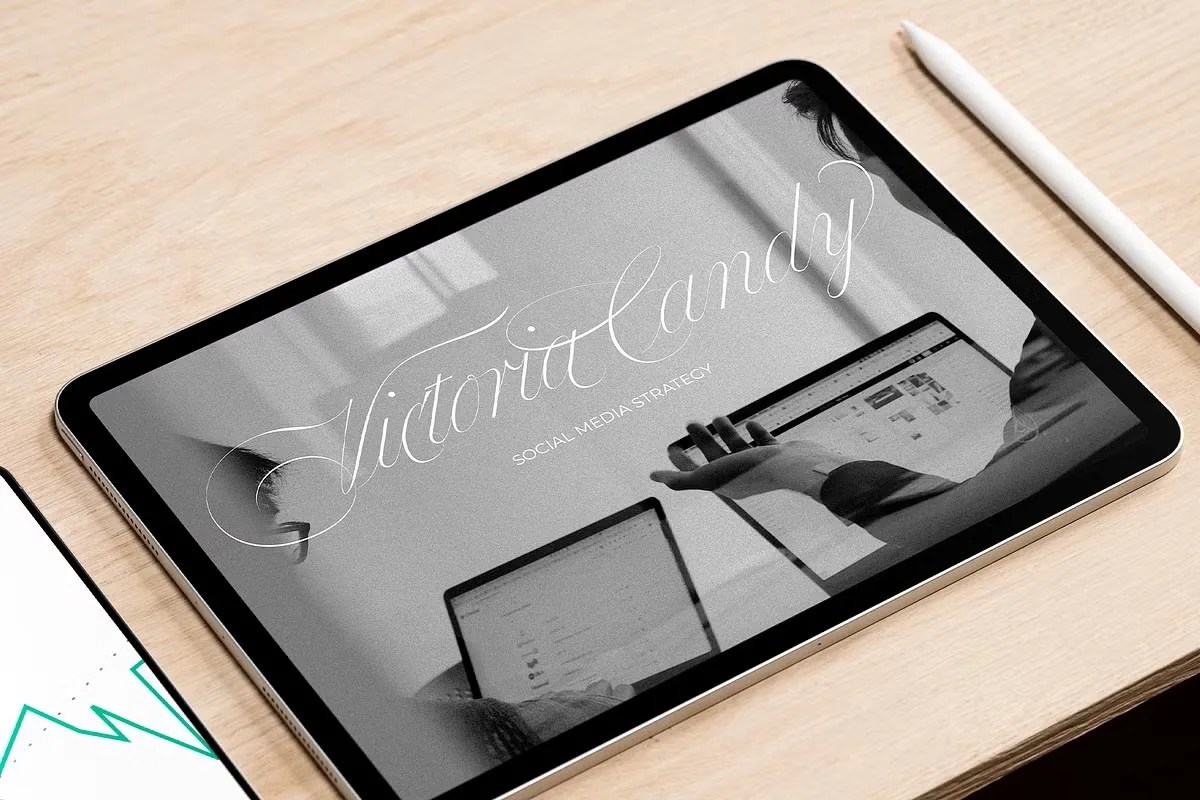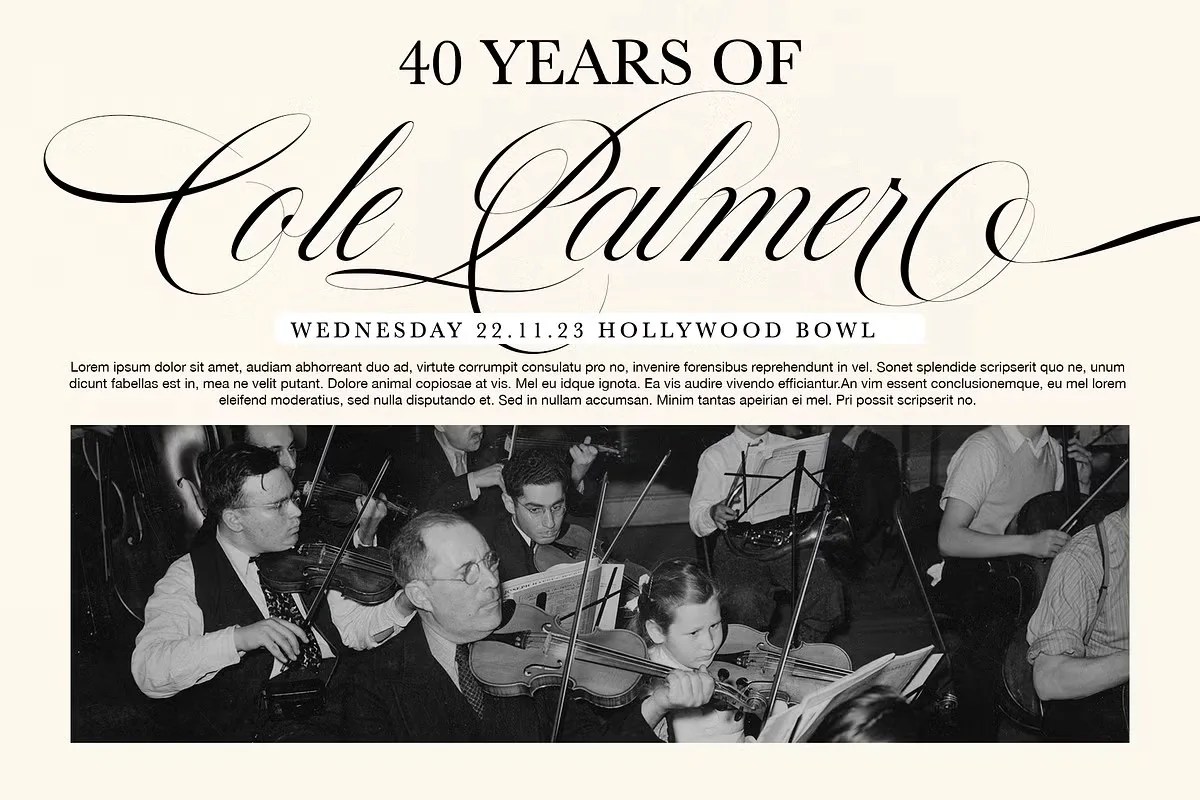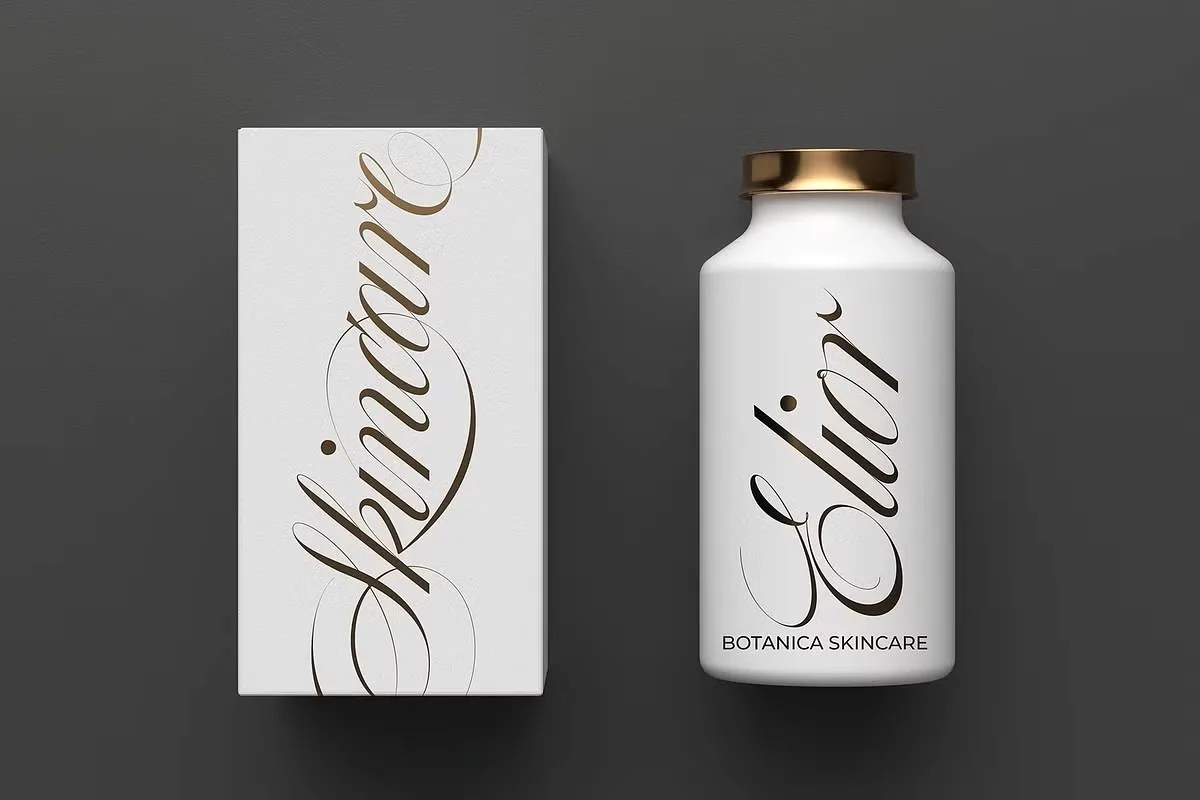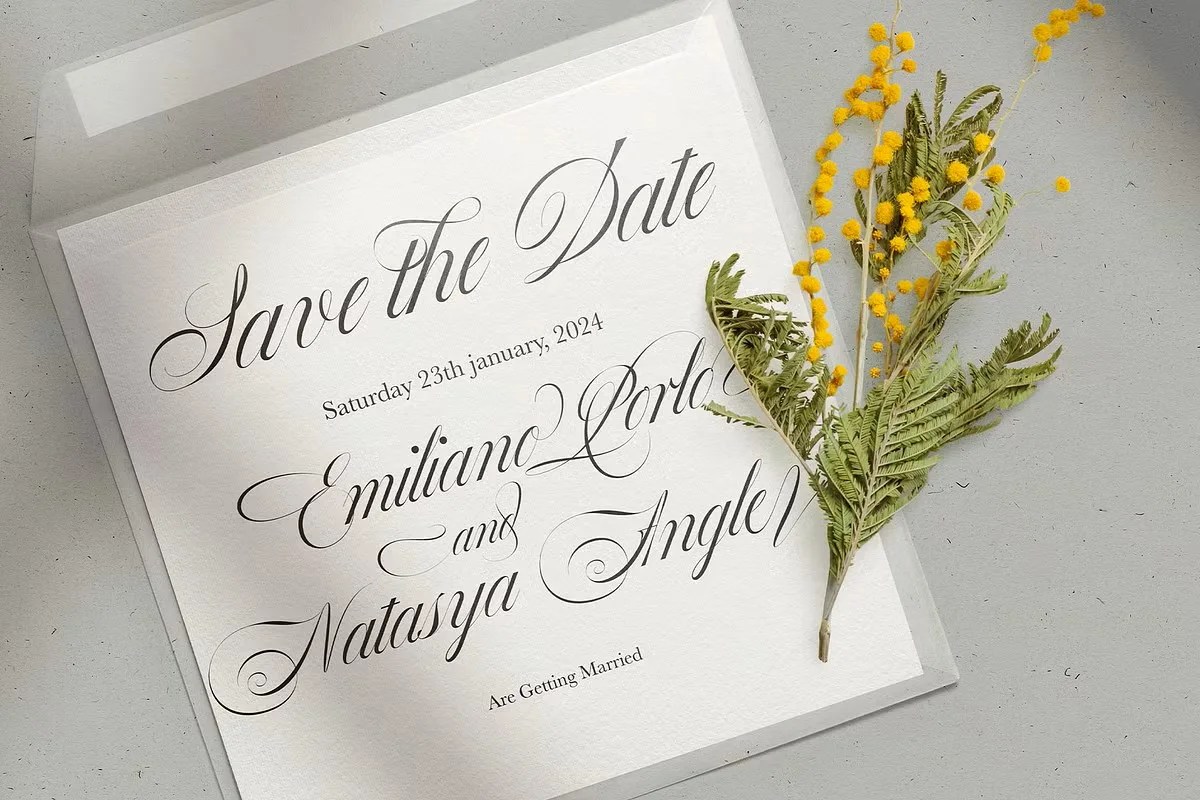
Bustra by Alcode, an elegant and flowing script font that brings a dynamic, handwritten touch to your creative work. Bustra features graceful strokes, natural connections between letters, and a fluid rhythm that mimics the beauty of authentic calligraphy. This font is perfect for designers who want to add a personal and sophisticated flair to their projects, making text feel both artistic and heartfelt.
Use Bustra to create stunning wedding invitations, craft beautiful logotypes for photographers or signature brands, and design heartfelt social media graphics. Its legibility and elegance also make it an excellent choice for product packaging, personal branding, and any design that benefits from an authentic, calligraphic signature style.
• Elegant and flowing script style
• Features natural, handwritten connections
• Ideal for invitations, logos, and signature branding
• Adds a personal and sophisticated touch